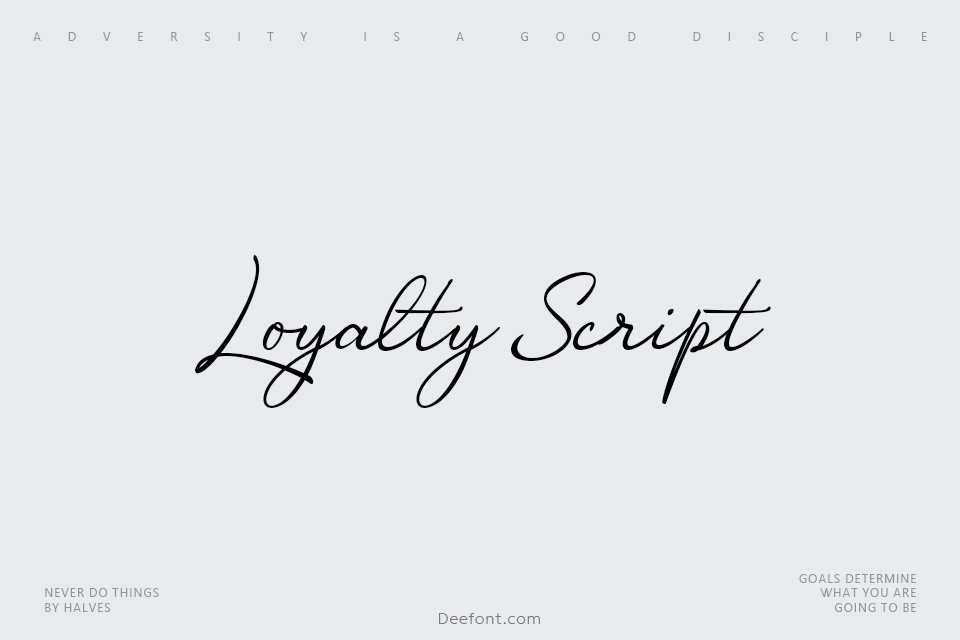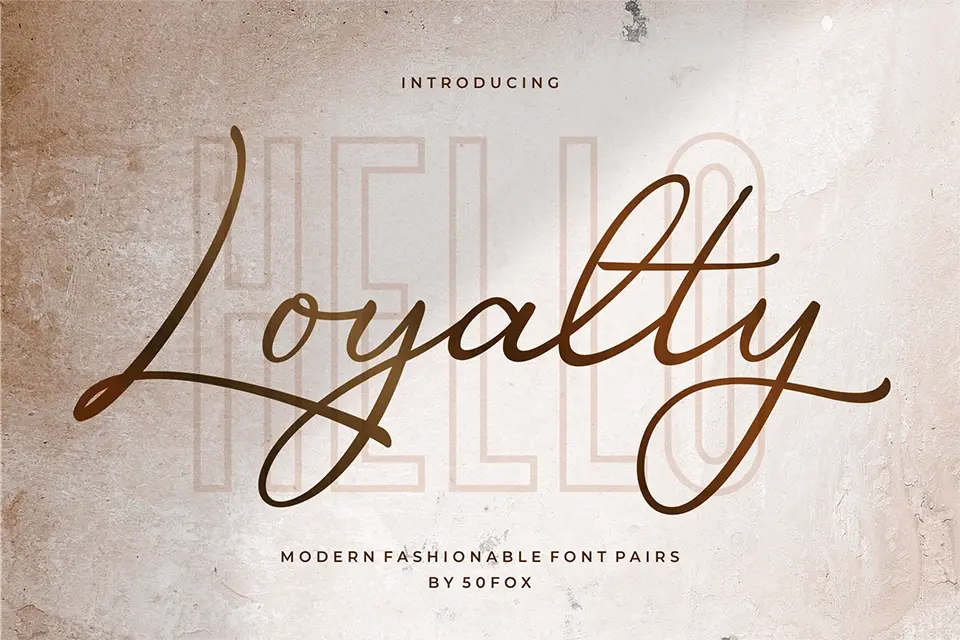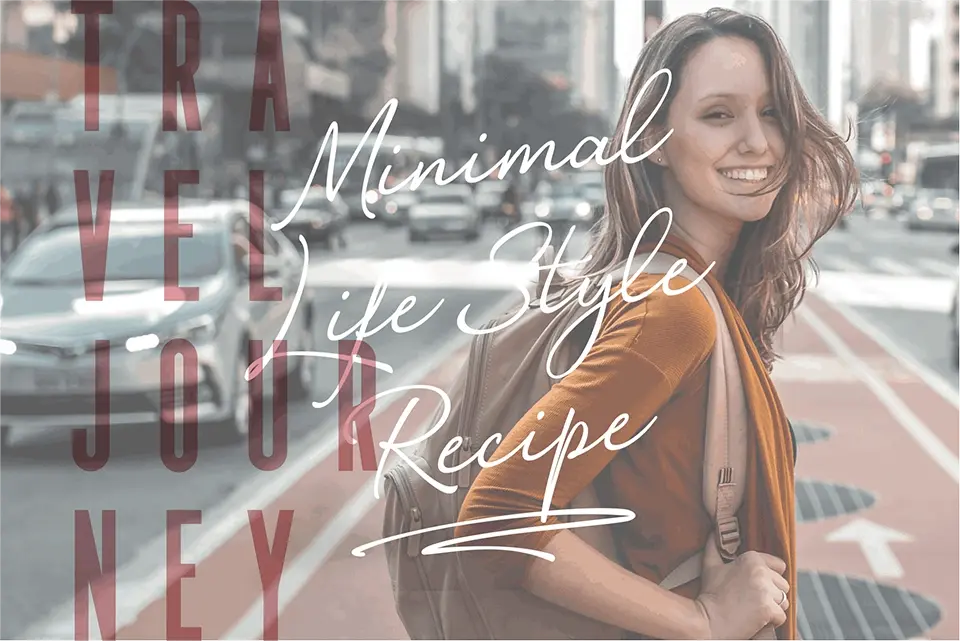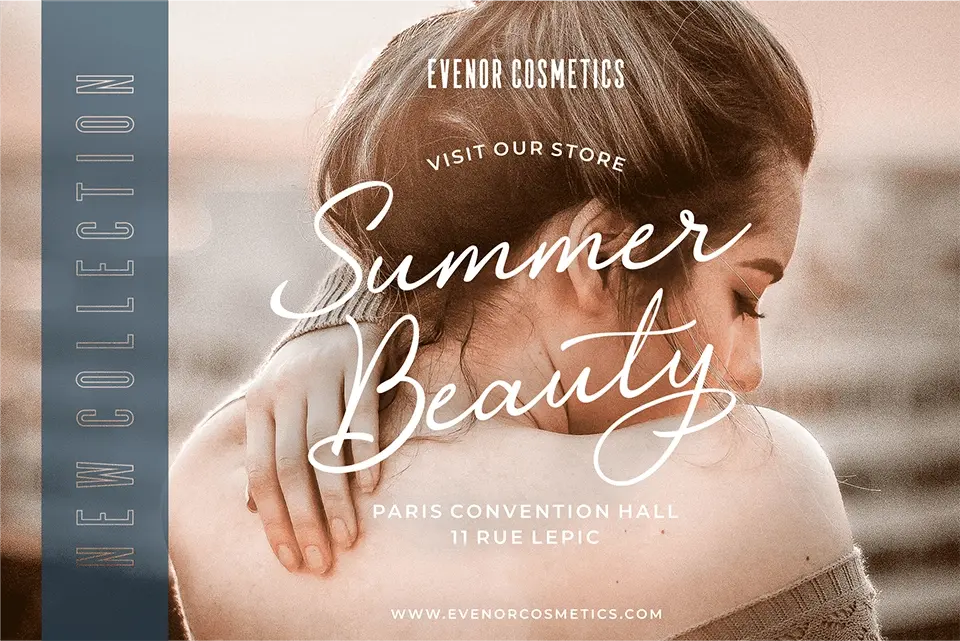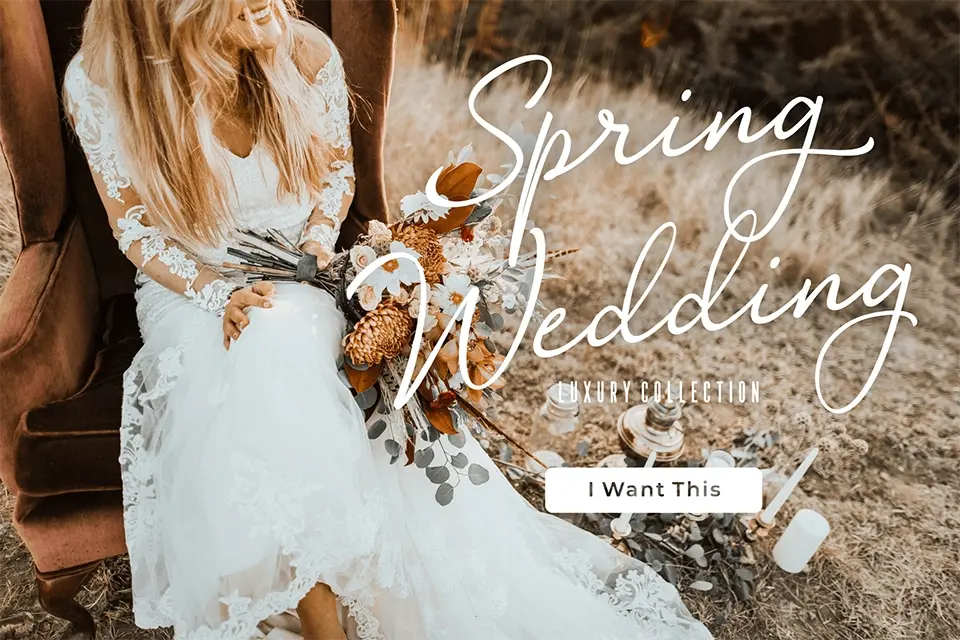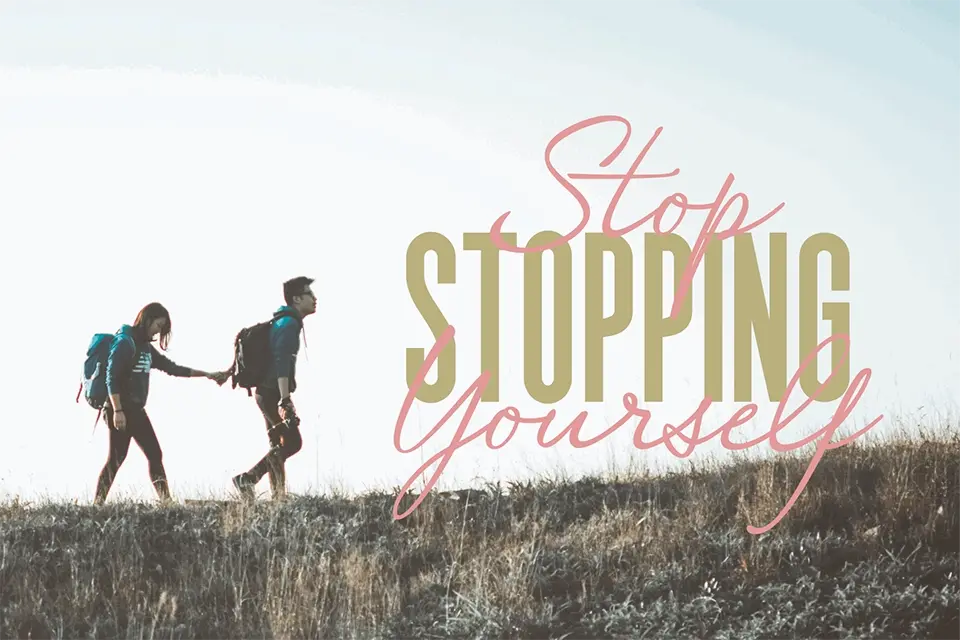
Loyalty Script Font
Loyalty Script is an elegant handwritten script font created by 50Fox Studio, featuring flowing cursive letterforms with high contrast between thick and thin strokes. Perfect for luxury branding, cosmetics design, and sophisticated typography projects. This modern calligraphic typeface combines warmth and elegance, offering a casual yet premium aesthetic suitable for creative endeavors.